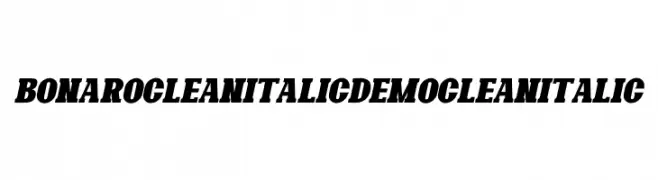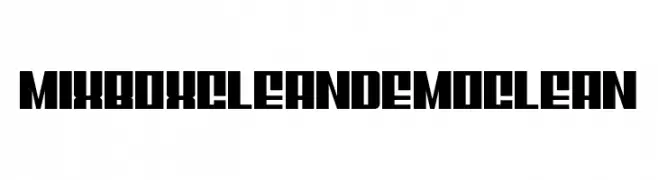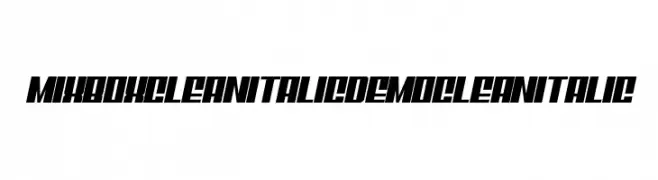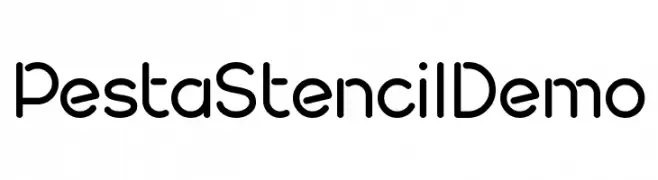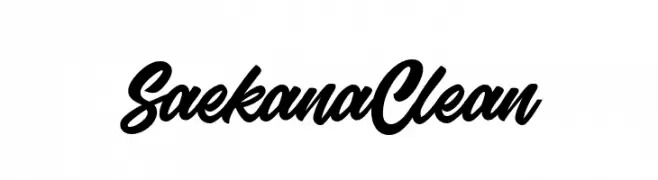
A bold, geometric italic font with a modern and dynamic style.
A bold, geometric font with angular shapes and a strong, industrial aesthetic.
A bold, impactful font with a vintage yet modern style, perfect for standout designs.
A bold, italic serif font with high contrast and angular serifs.
A modern, light sans-serif font with clean lines and balanced proportions.
A modern, clean sans-serif font with uniform strokes and a slightly condensed style.
A bold, flowing script font with elegant, cursive letters and high contrast.
A decorative and modern typeface with playful uppercase and straightforward lowercase letters.
A modern, stencil-inspired font with rounded edges and clean lines.
A bold, textured font with a brush stroke effect and distressed appearance.